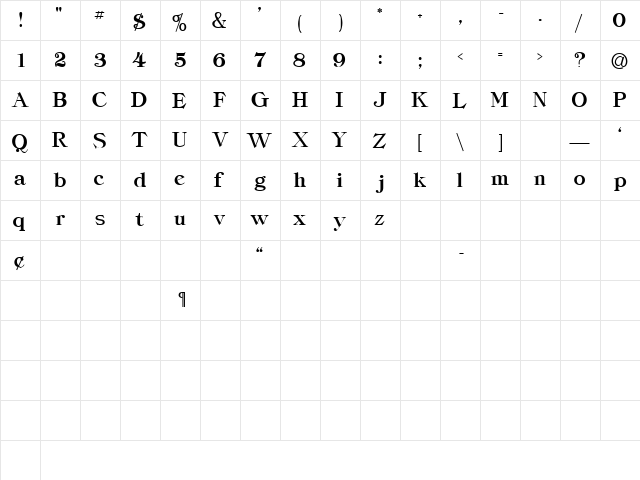
PreposSSK Regular
Design Context for PreposSSK Typeface
PreposSSK takes a measured approach to typography — its balanced proportions and neutral character make it a reliable workhorse for both digital and print work.